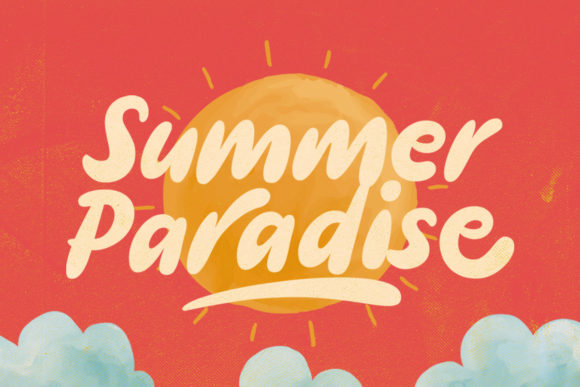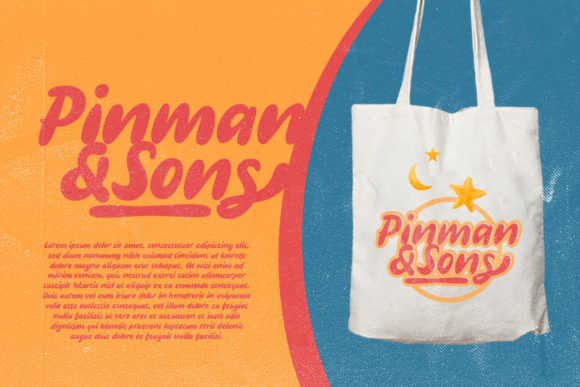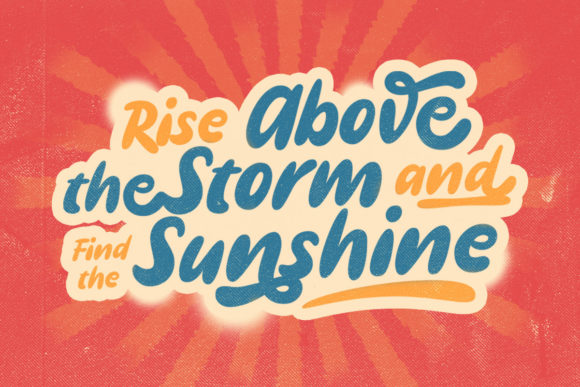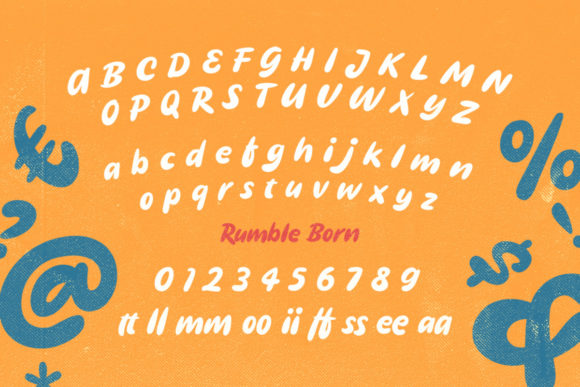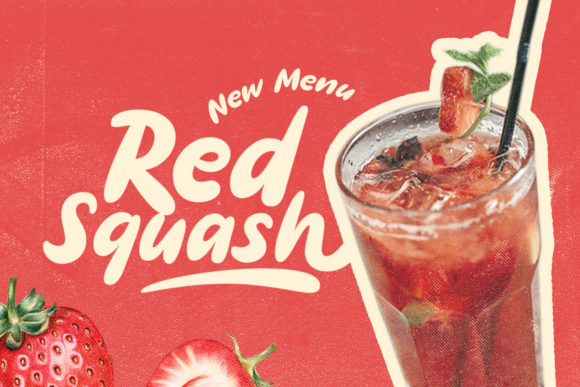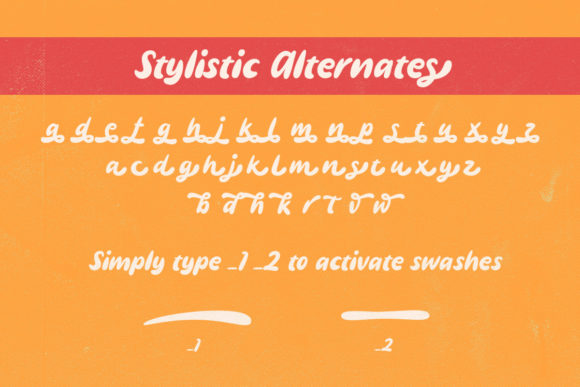
Introduction to Rumble Born Font
Do you remember that moment when you’re working on a creative project, and the perfect font suddenly pops into your mind? It’s like a spark of inspiration that sets your design ablaze. For designers, finding the right font can be a game-changer, and that’s exactly what we’re excited to share with you today – the Rumble Born Font.
This gorgeous and bold display font is crafted to give your headlines and logotype projects a retro touch that’s both strong and confident. With its dynamic feel, the Rumble Born Font can add tons of nostalgic character to your designs, making it a valuable resource for any design project.
Key Features of Rumble Born Font
- Rumble Born Font is a high-quality design resource ideal for creative projects, offering a unique and bold aesthetic.
- The font has a large character set, including uppercase and lowercase letters, numbers, and punctuation marks, making it suitable for various applications.
- This font is perfect for designers looking for a bold and eye-catching font to add a dynamic touch to their creative project.
Honest Review: Rumble Born Font
As a designer, I’m always on the lookout for high-quality design resources to enhance my creative projects. The Rumble Born Font has caught my attention, and I’m excited to share my honest review.
What works well: ✨ The font has a unique, bold design that’s perfect for making a statement in any project. It’s available for free download, which is a major plus for designers on a budget. The transparent background makes it easy to integrate into various design settings. The font also comes in a range of weights and styles, giving me plenty of options for creative expression.
What doesn’t work well: ⚠️ While the font is high-quality, it’s not suitable for all types of projects. The bold design can be overwhelming in some contexts, and the font may not be suitable for text-heavy content. Additionally, some users may find the font’s unique design to be too trendy or gimmicky.
Overall impression: The Rumble Born Font is a great addition to any designer’s toolkit, especially for projects that require a bold, eye-catching design. While it may not be suitable for all projects, it’s a valuable resource for designers looking to add some creativity and flair to their work.
Pros:
- Unique, bold design
- Range of weights and styles
Cons:
- Not suitable for all types of projects
- May be overwhelming in some contexts
- Font may be too trendy or gimmicky for some users
How to Use Rumble Born Font
To get the most out of the Rumble Born Font, consider the following tips:
- Combine the Rumble Born Font with other design elements to create a visually appealing design.
The Rumble Born Font is ideal for a variety of creative projects, including:
- Print materials